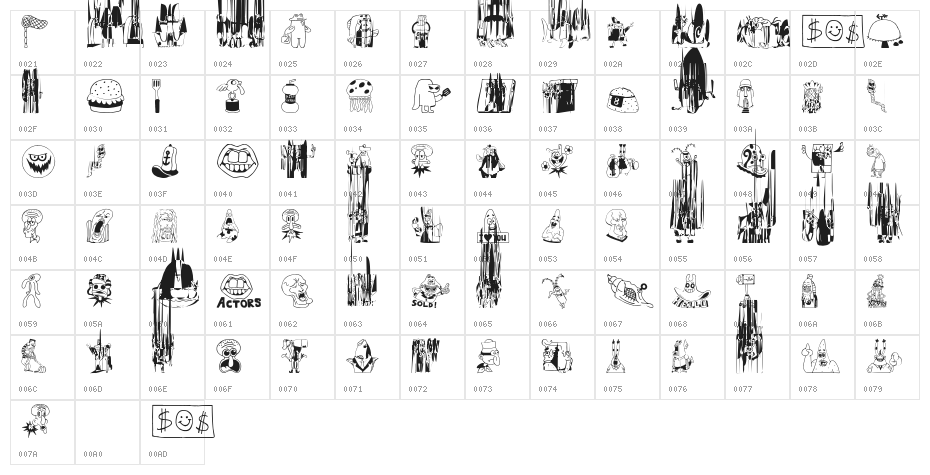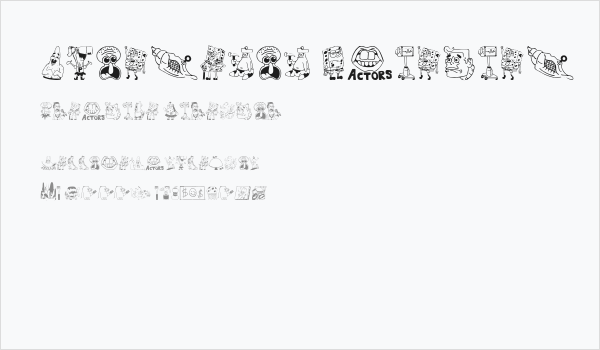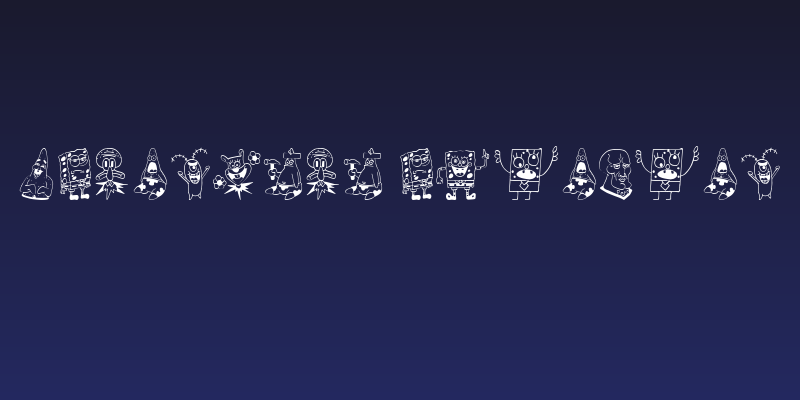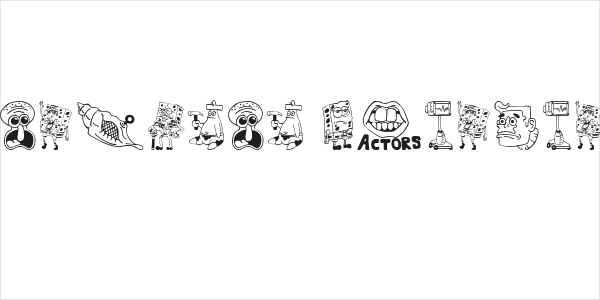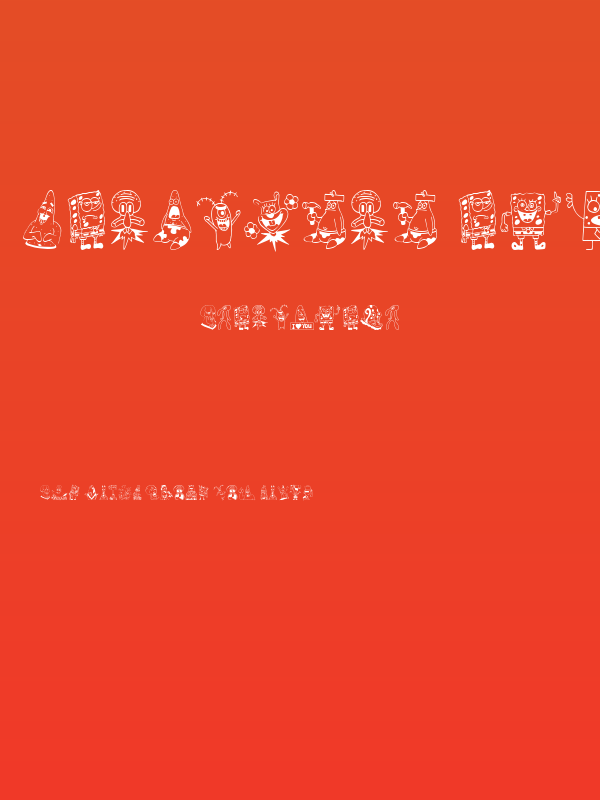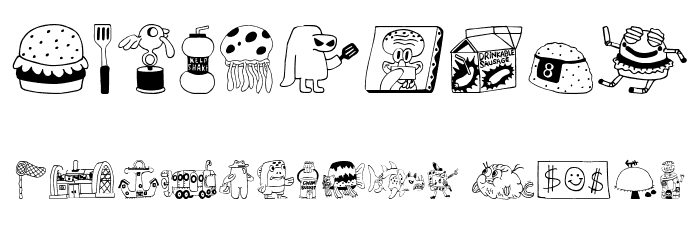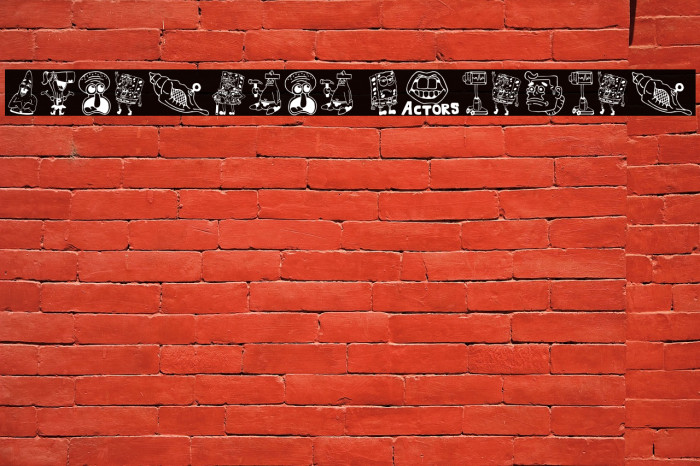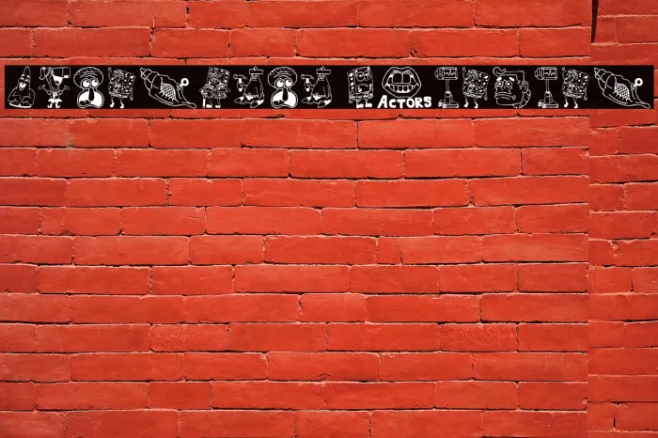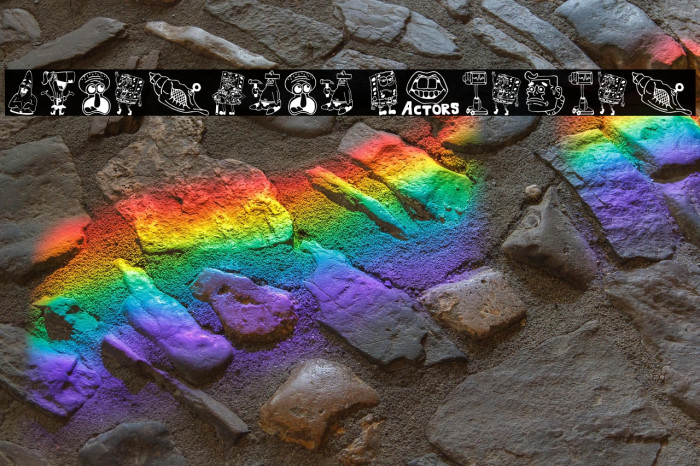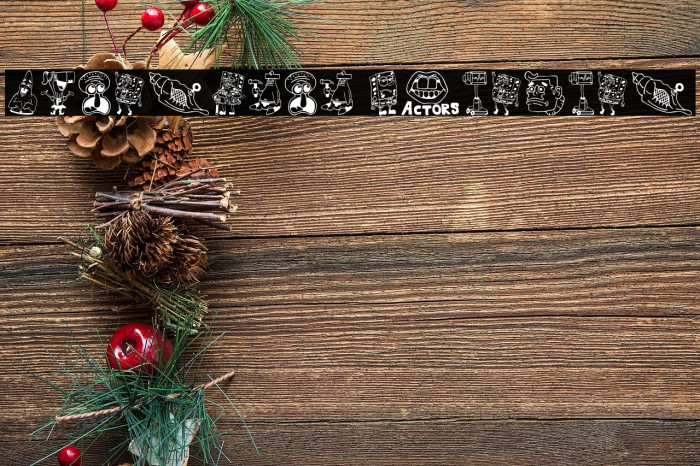
SpongeBoB Painting Font
SpongeBoB Painting Description
A highly decorative and playful font composed of hand-drawn cartoon illustrations inspired by underwater and comedic themes, with each character represented by a unique, whimsical drawing rather than traditional letterforms.
| Overall Style | Decorative, Playful, Cartoonish |
| Use Case | Logos, Headlines, Posters, Themed Graphics |
| Proposed Projects | Children’s books, party invitations, themed posters, comic strips, novelty merchandise, playful branding. |